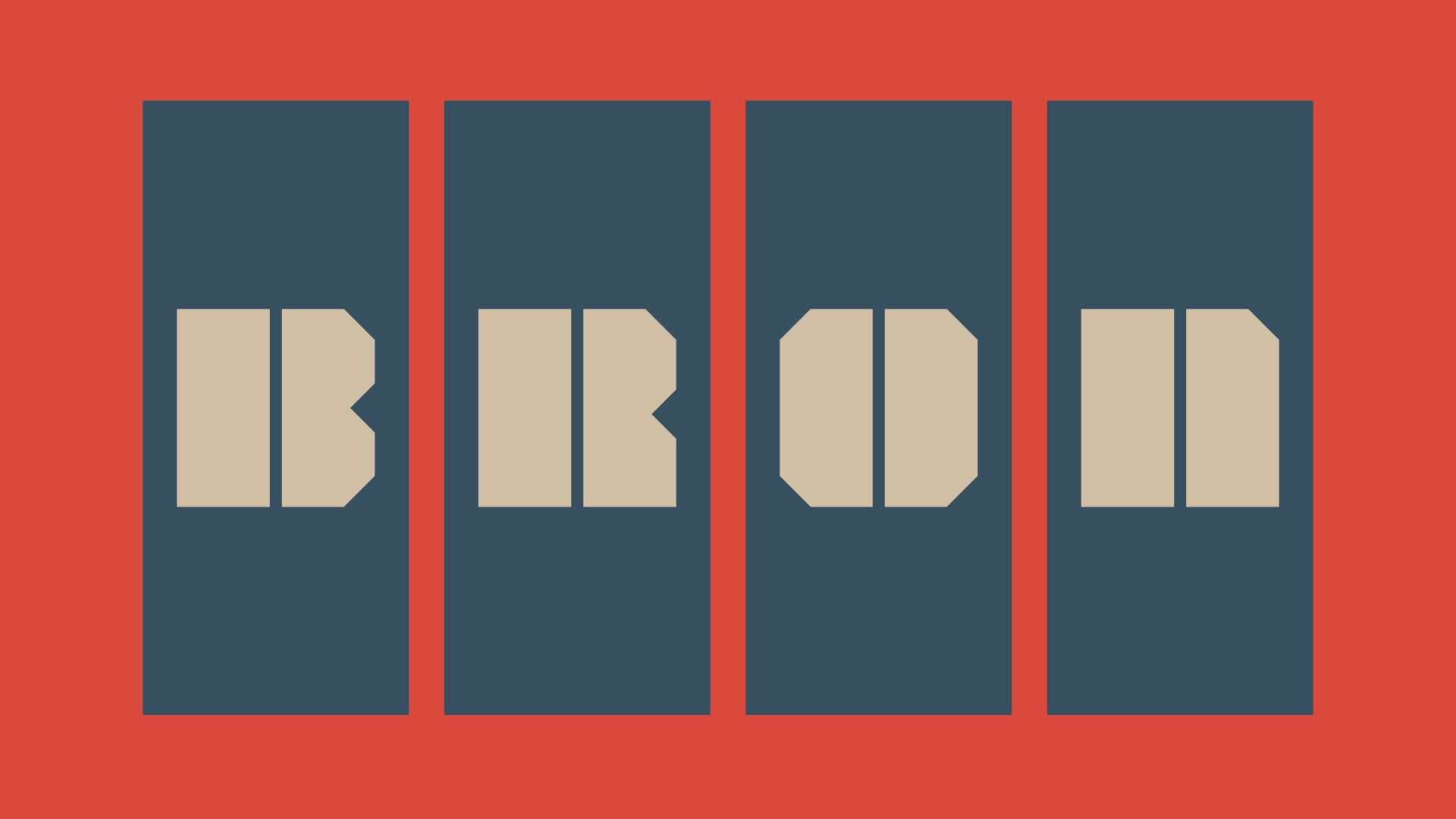
BRON TYPEFACE
Bron is a heavy-weight industrial stencil font built for bold, high-impact visuals. Its thick, mechanical cuts and geometry blends sci-fi tech and raw industrial power. Ideal for identity design, branding and editorial headlines, that demand attention with a innovative feel.
Upper and Lowercase with NUMERALS